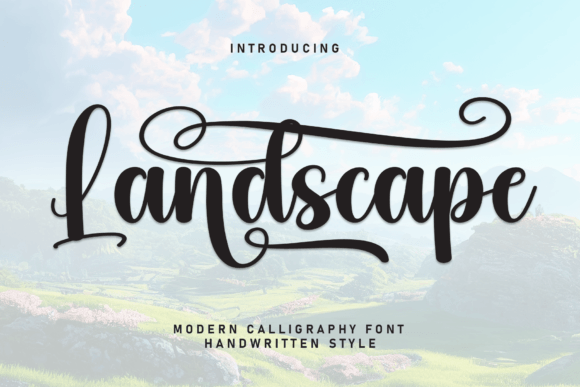
Unleash the charm of timeless memories with Landscape Font, a breathtaking script font family that captures the essence of vintage nostalgia. Inspired by the allure of bygone eras, Landscape Font transports you to an era of elegance and grace, where every letter dances with a touch of heartfelt emotion.
Crafted with meticulous attention to detail by the talented William Jhody, Landscape Font is a true masterpiece of typography. Its gently flowing lines, reminiscent of handwritten notes from a cherished past, evoke a sense of warmth and nostalgia. With its enchanting curves and playful flourishes, Landscape Font adds a touch of whimsy to your designs, making them stand out from the ordinary.
Immerse yourself in the delightful world of vintage charm with Landscape Font. Picture wedding invitations adorned with its delicate strokes, envelopes bearing messages of love and longing, or heartfelt greeting cards that carry the weight of treasured memories. Its versatility extends to posters, flyers, and social media graphics, effortlessly adding a touch of timeless elegance to any project.
Whether you're a seasoned designer or just starting your creative journey, Landscape Font is the perfect companion for your vintage-inspired designs. Its user-friendly nature makes it accessible to everyone, while its undeniable beauty will captivate audiences of all ages. Join the ranks of creative visionaries who have embraced the allure of Landscape Font and let your designs speak volumes of heartfelt nostalgia.